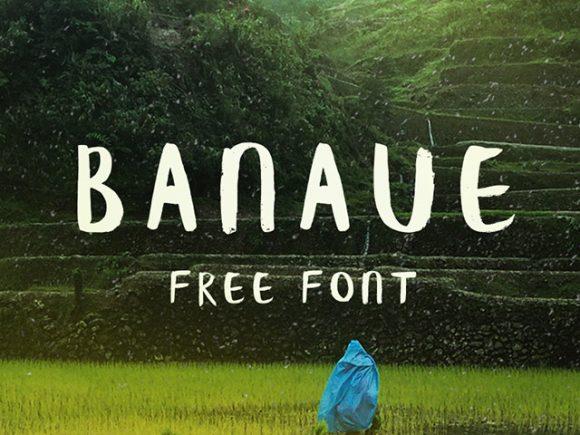
Today we're glad to feature this free banaue handwritten brush font. Go give some love to Freebies Bug for creating this top-notch free font. Easily amaze your audience with this cool font and make your graphic designs pop up from the crowd.